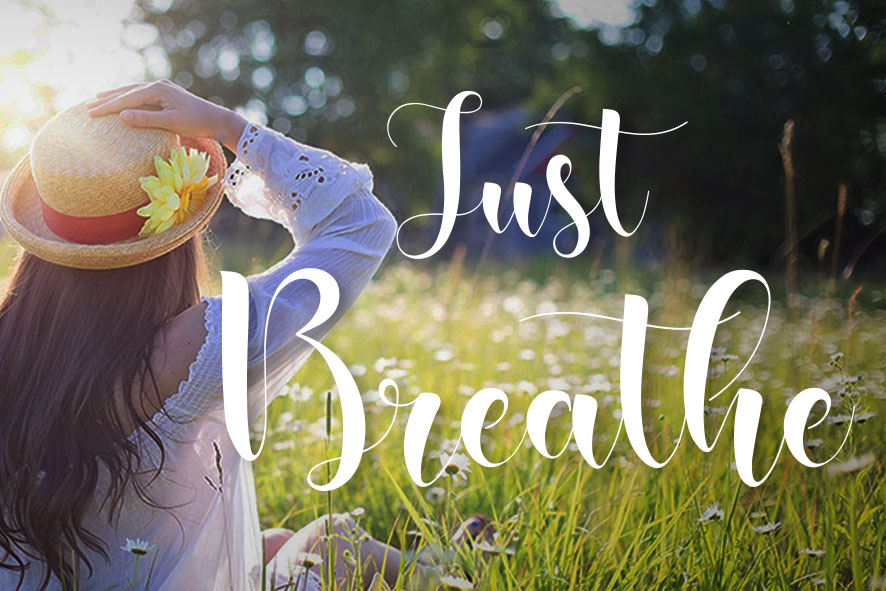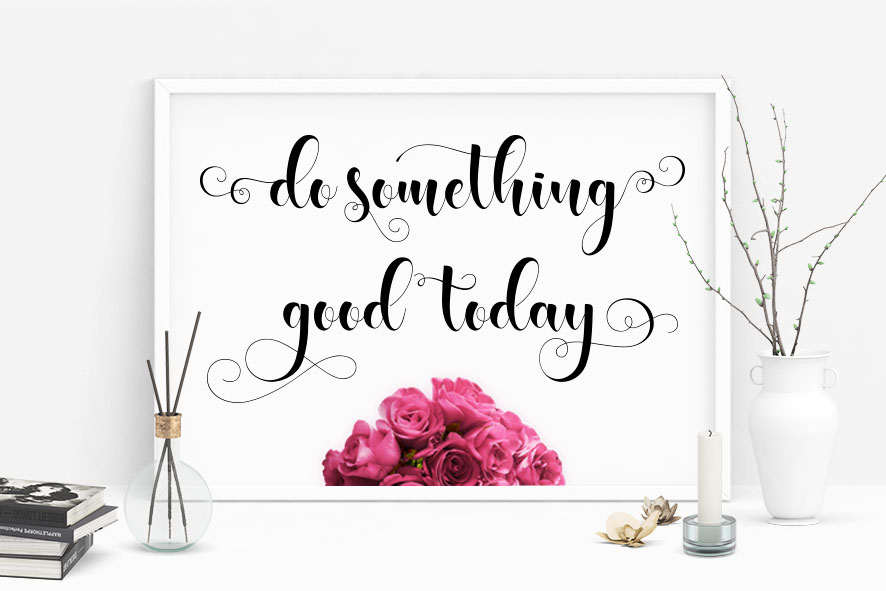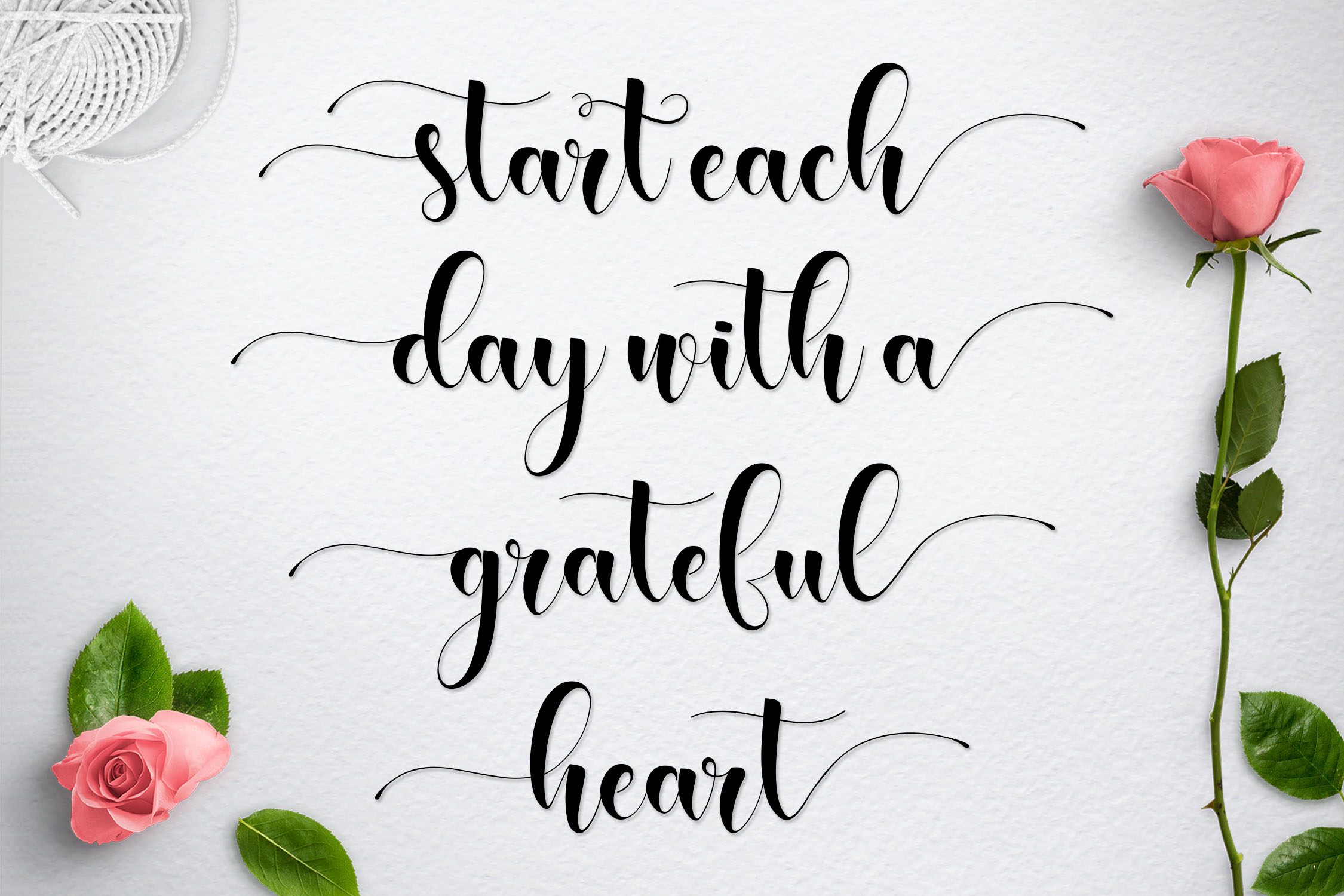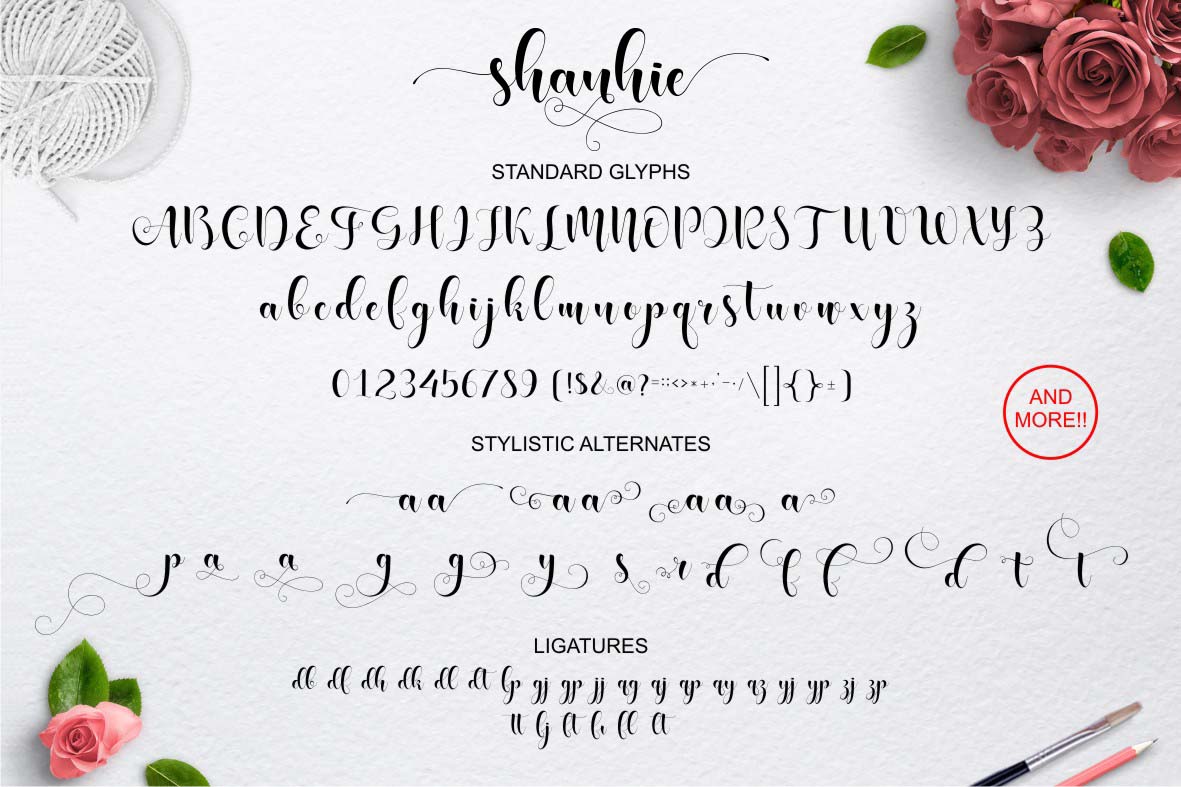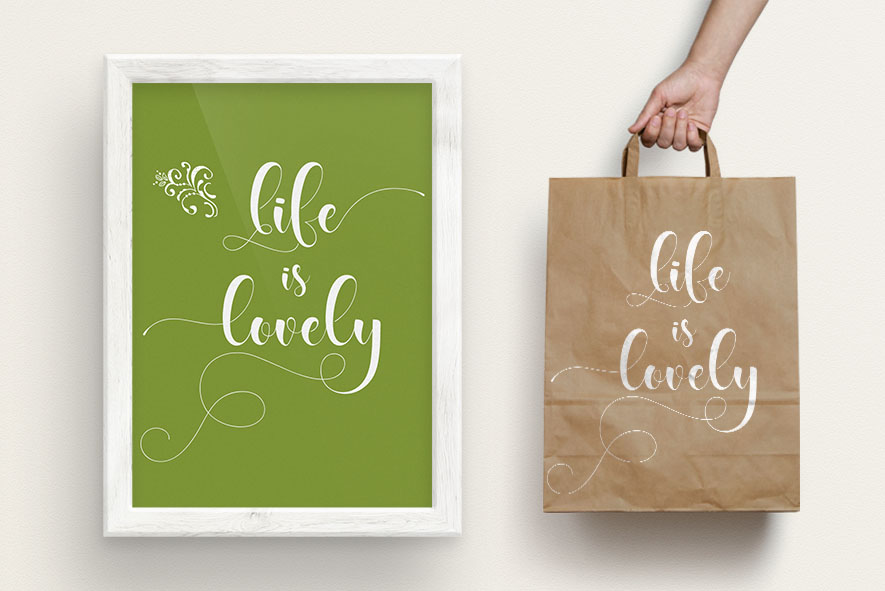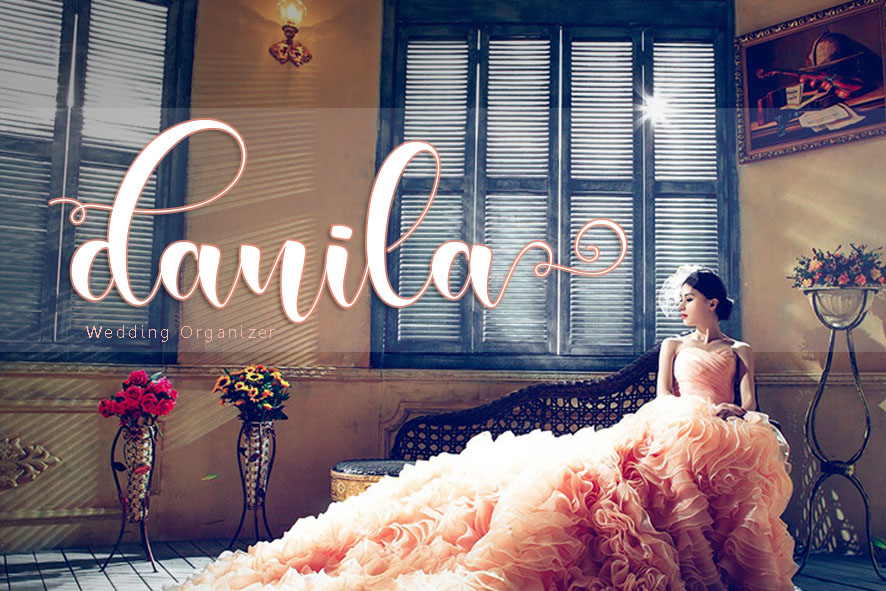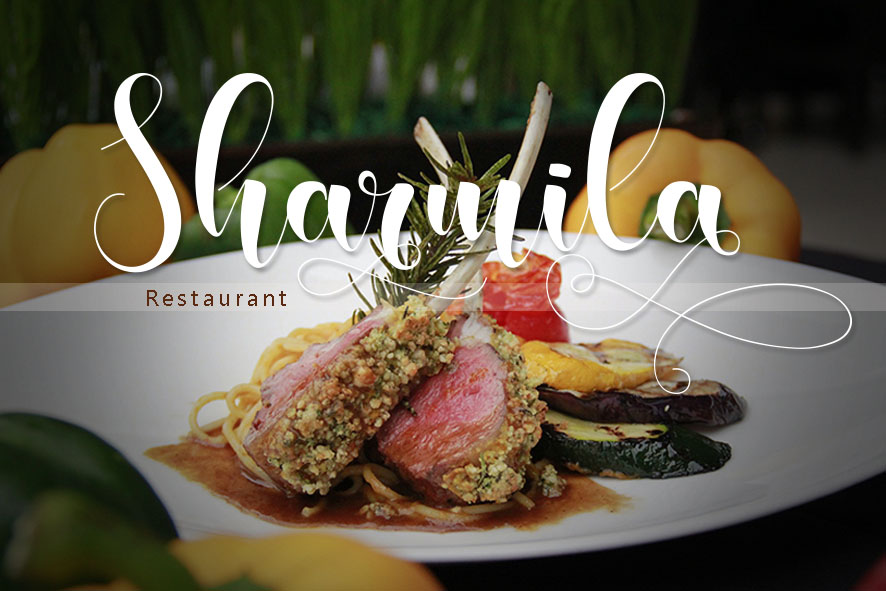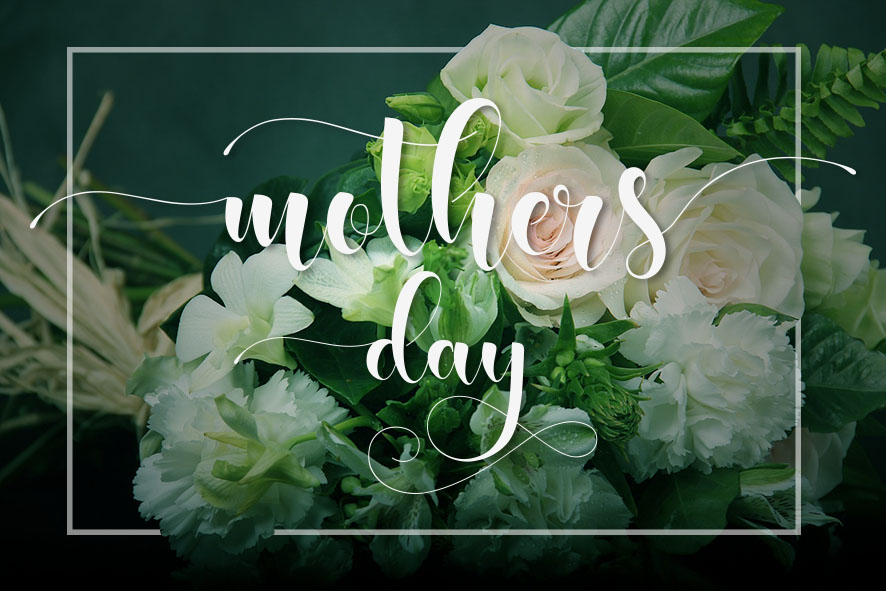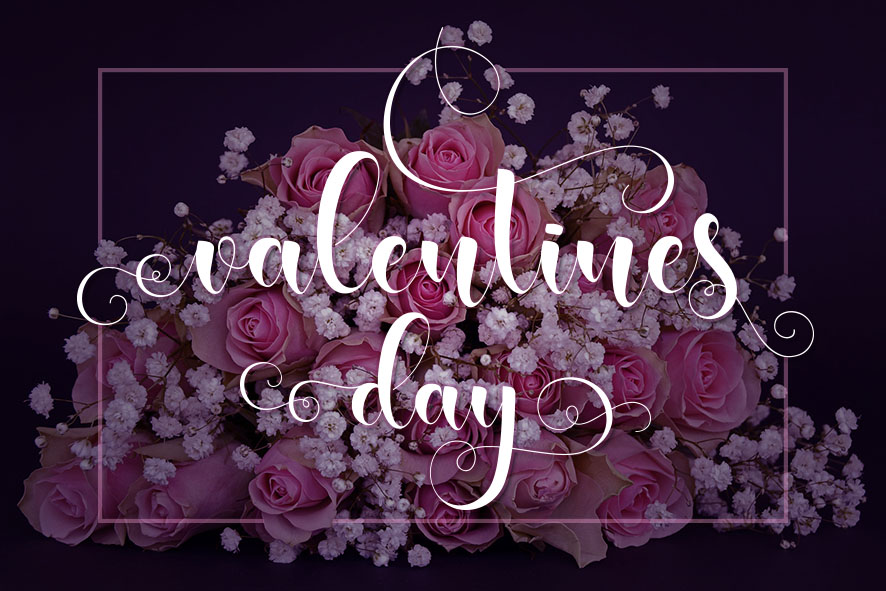
Shanhie Font
About Shanhie Font
Shanhie is a freh, modern script published by Jamalodin. This calligraphy-style font comes packed with over 490 handmade glyphs.